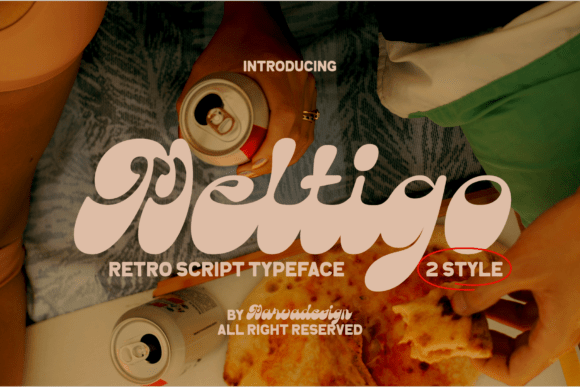
Meltigo Font: A Groovy Retro Script Font for Your Design Needs
The Meltigo font is a bold and playful retro script font designed by Marvadesign. This typeface embodies a groovy 70s-inspired aesthetic, with exaggerated curves, bubbly letterforms, and high contrast between thick and thin strokes. Its unique look is a mix of expressive brush-style lettering and smooth, rounded forms, which gives it a soft, melting appearance, hence the name Meltigo.
Design and Features
The Meltigo typeface is a carefully crafted font that showcases a distinctive blend of vintage charm and modern flair. Its design is characterized by:
- Exaggerated Curves: Meltigo features bold, sweeping curves that give it a dynamic and lively feel.
- Bubbly Letterforms: The font’s letterforms are designed with a playful, bubbly quality that adds to its retro appeal.
- High Contrast: The contrast between thick and thin strokes creates a sense of depth and visual interest.
- Expressive Brush-Style Lettering: Meltigo’s lettering style is reminiscent of expressive brush strokes, giving it a hand-crafted feel.
- Smooth, Rounded Forms: The font’s smooth, rounded forms add to its soft, melting appearance.
Font Styles and Variations
Meltigo comes in two distinctive styles: Regular and Italic. This allows designers to play with typographic contrast while maintaining a cohesive look. The font supports both uppercase and lowercase characters, numerals, and a variety of punctuation marks.
In addition to its standard character set, Meltigo features a full character set with stylistic alternates that emphasize its vintage personality. These alternates offer a range of creative possibilities, allowing designers to add unique touches to their work.
Use Cases for Meltigo
The Meltigo font is perfect for a wide range of design projects, including:
- Branding Projects: Meltigo’s bold, playful aesthetic makes it ideal for branding projects that require a fun, youthful vibe.
- Product Packaging: The font’s retro charm and lively shapes make it a great fit for product packaging that needs to stand out on store shelves.
- Food Advertisements: Meltigo’s playful, cursive style is well-suited to food advertisements that require a friendly, approachable tone.
- Posters: The font’s bold, eye-catching aesthetic makes it perfect for posters that need to grab attention.
- Social Media Graphics: Meltigo’s fun, expressive shapes make it ideal for social media graphics that require a playful, engaging tone.